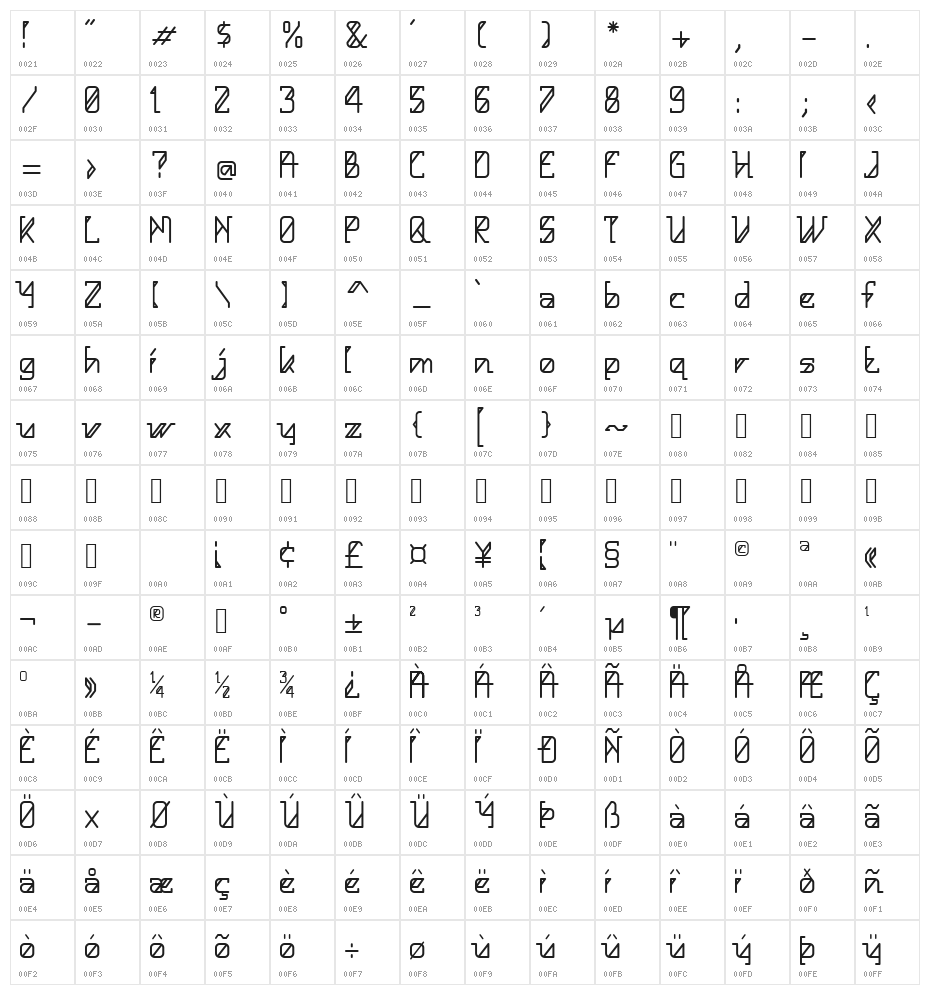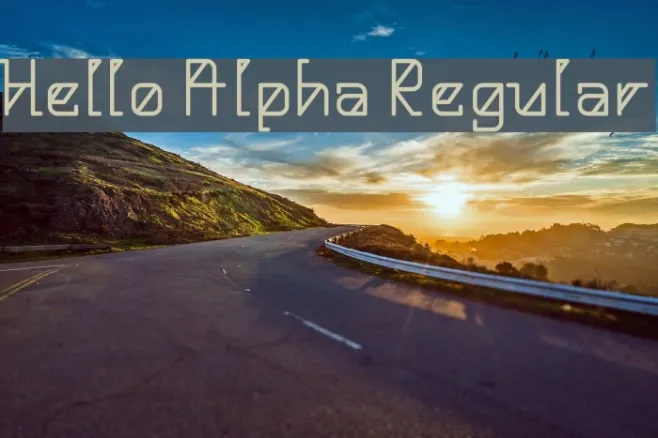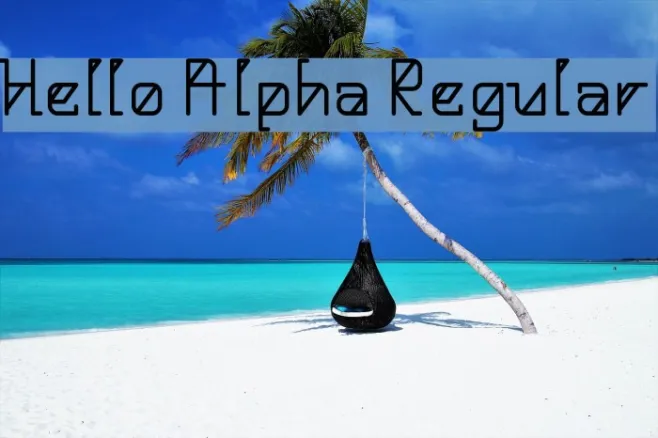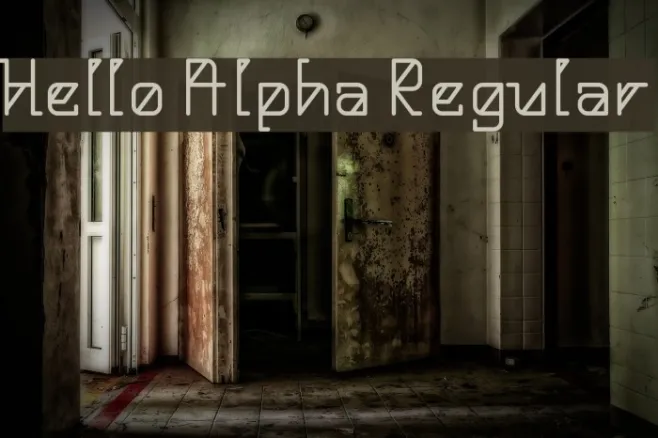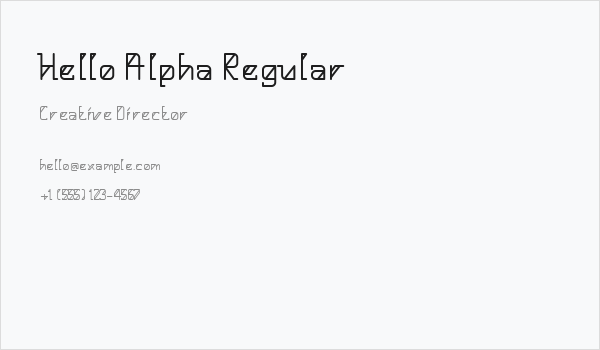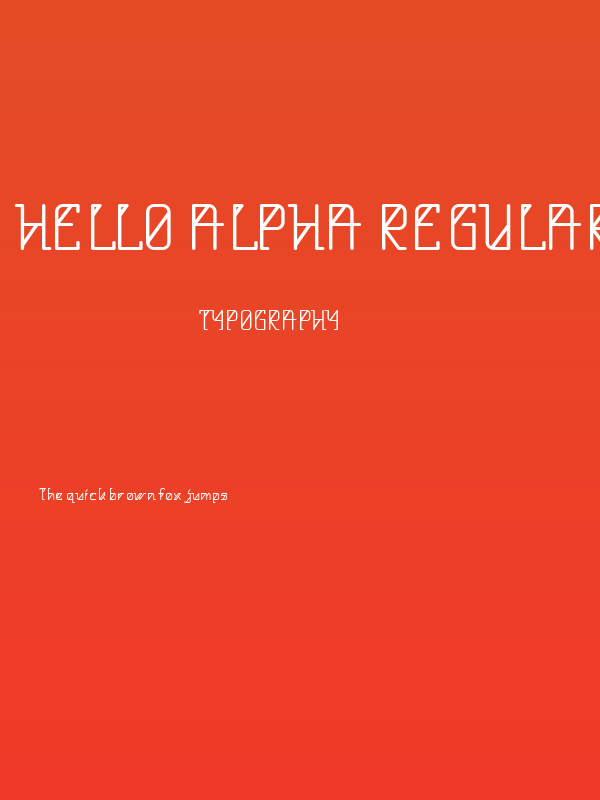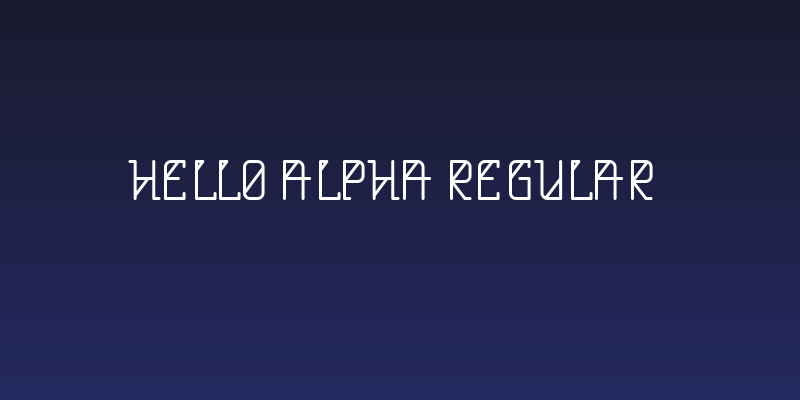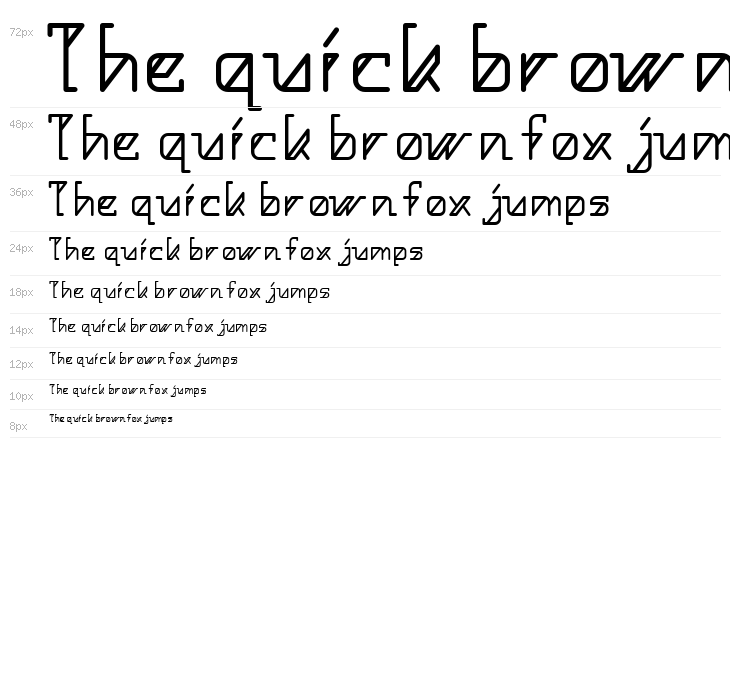
Hello Alpha Regular Font
Hello Alpha Regular Description
This font features a modern, geometric design with a unique, angular style. The characters are constructed with consistent line thickness, giving it a clean and structured appearance. The uppercase letters are bold and prominent, while the lowercase letters maintain a similar geometric aesthetic. The numerals are distinct and easy to read, complementing the overall design. Special characters are included, matching the font's angular theme. This font is suitable for projects that require a contemporary and distinctive look.
| Proposed Projects | Ideal for branding, logos, posters, and digital media that require a modern and unique style. |